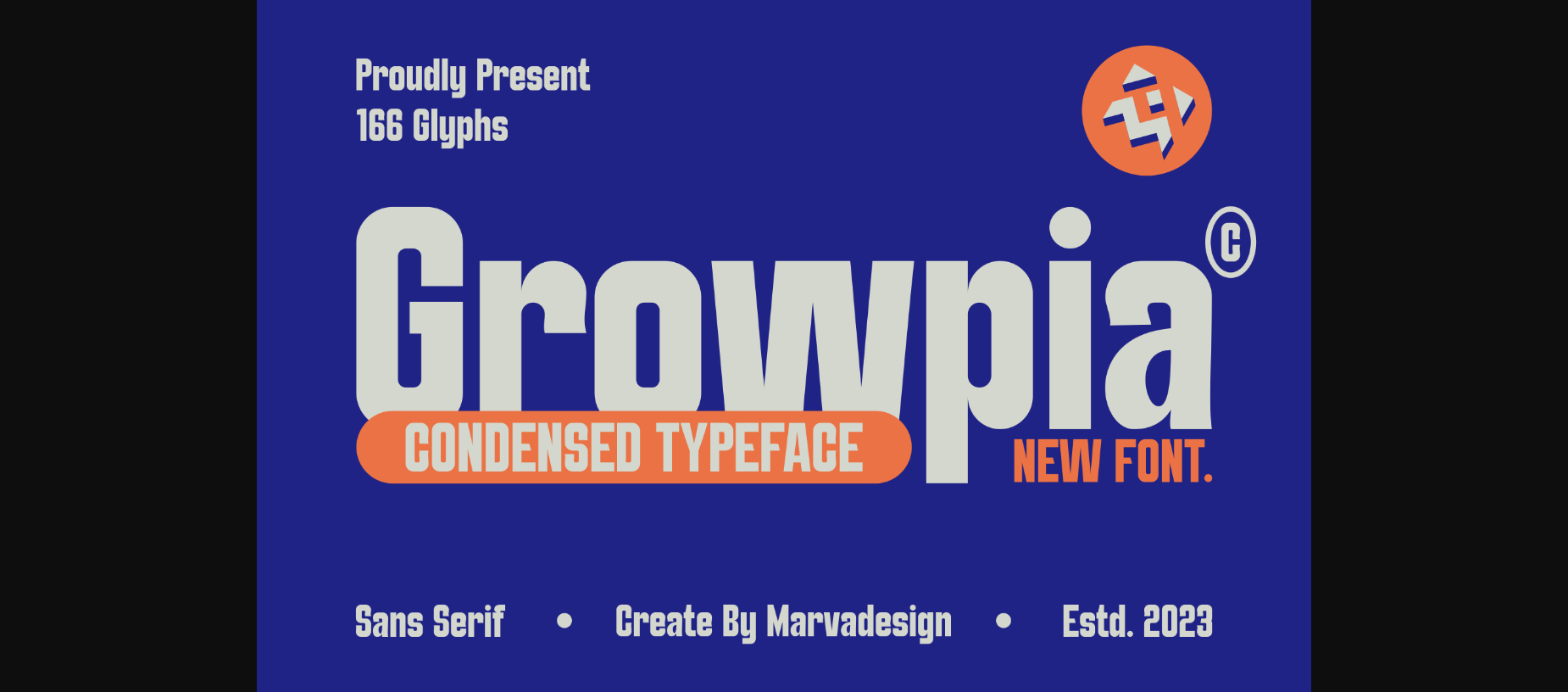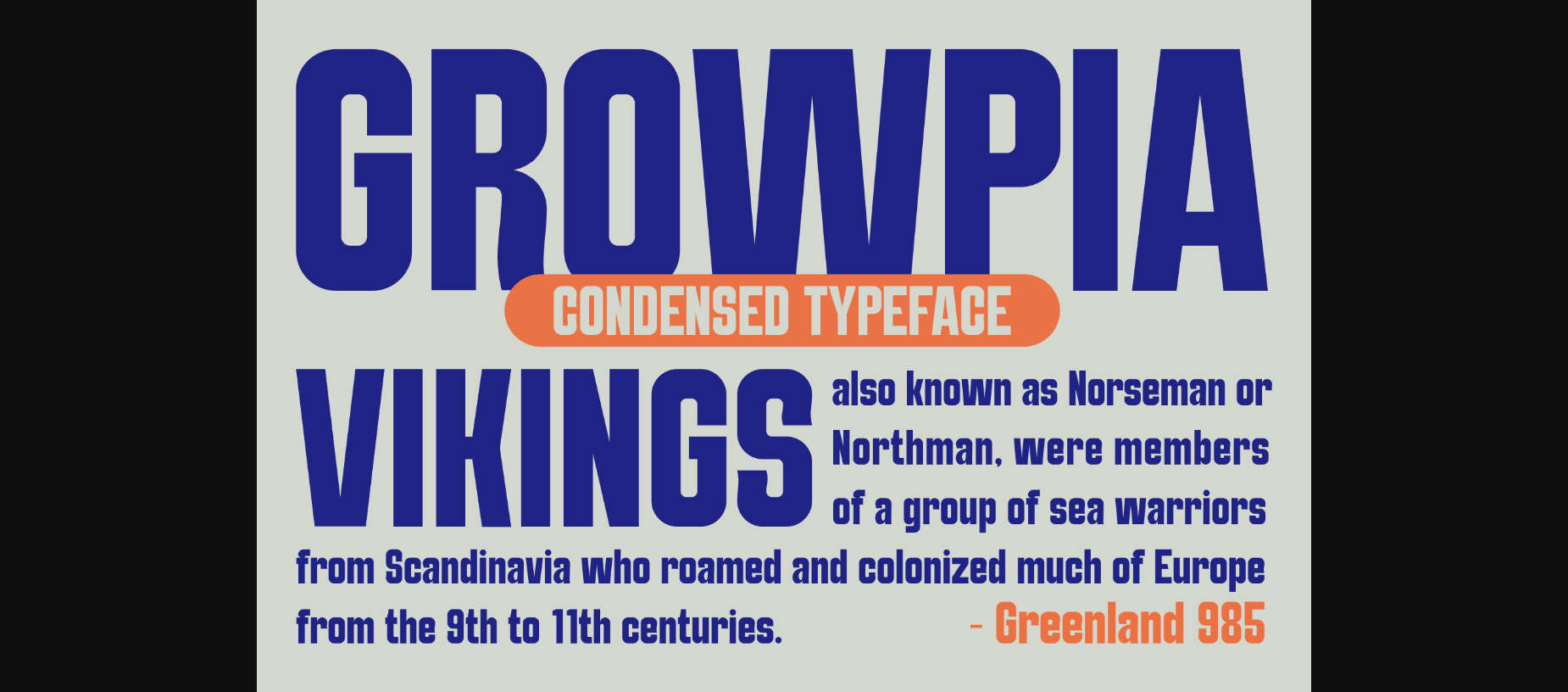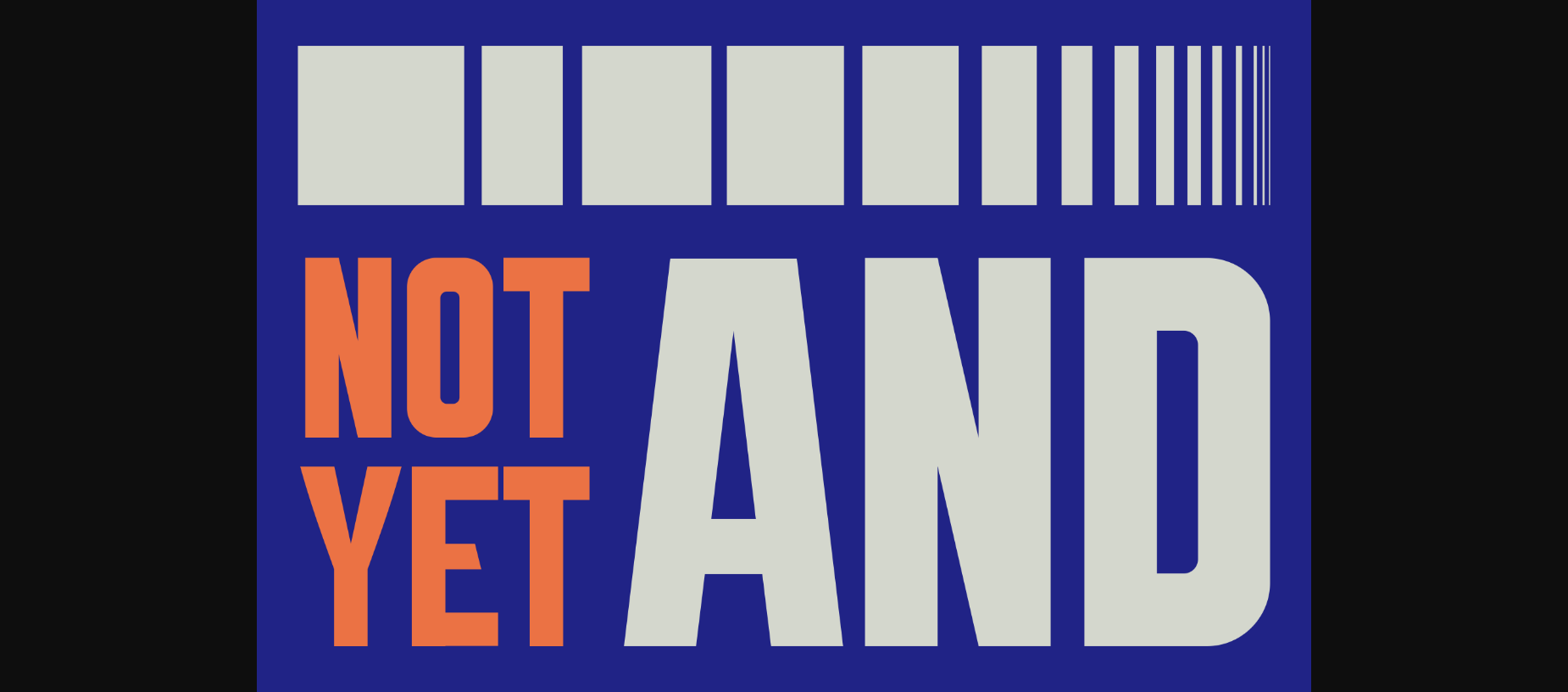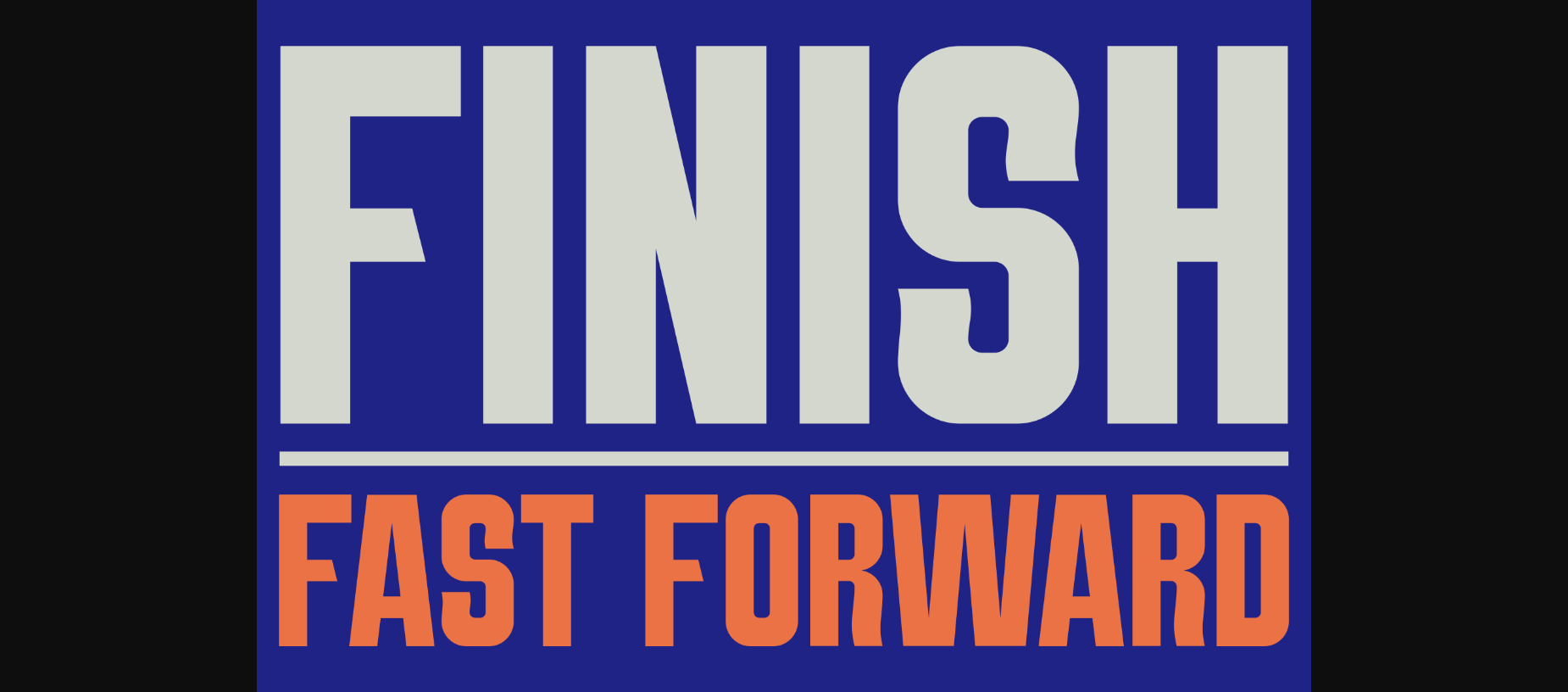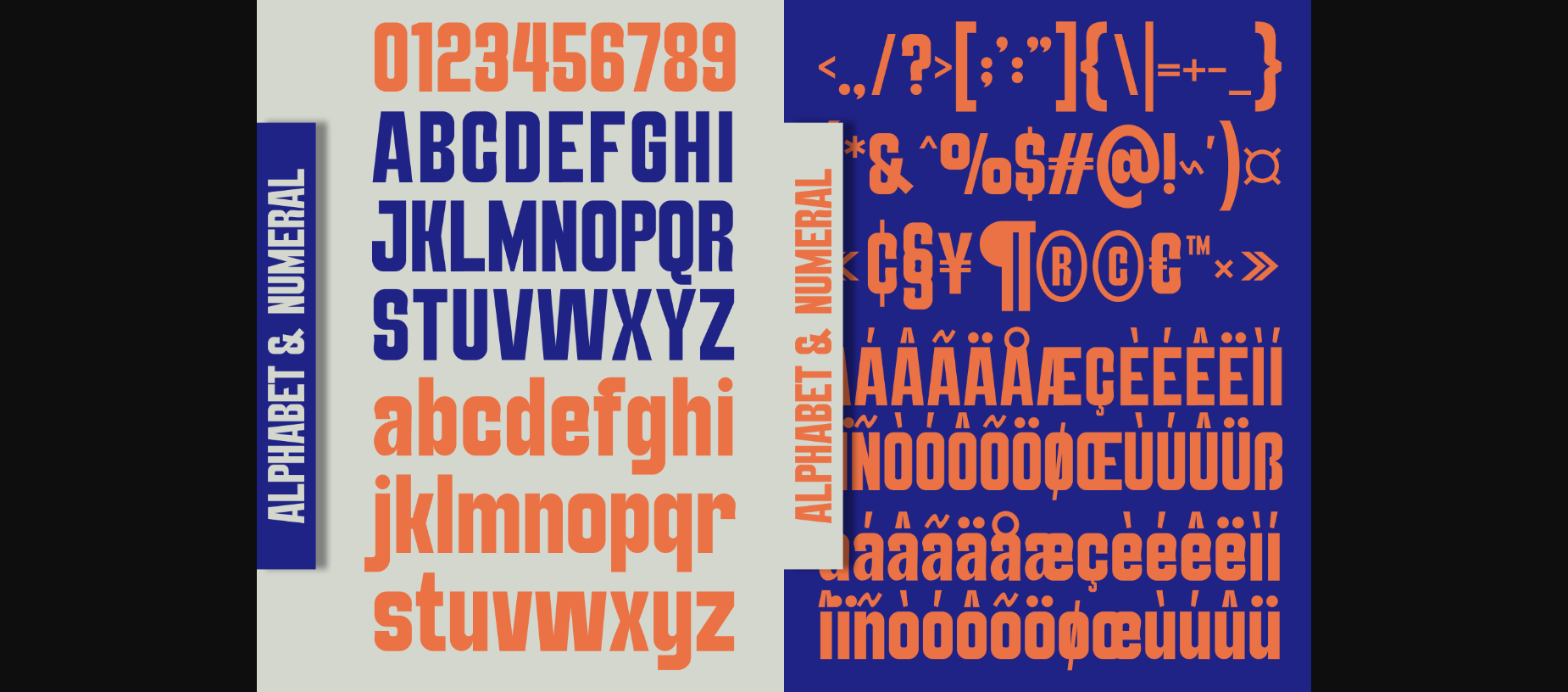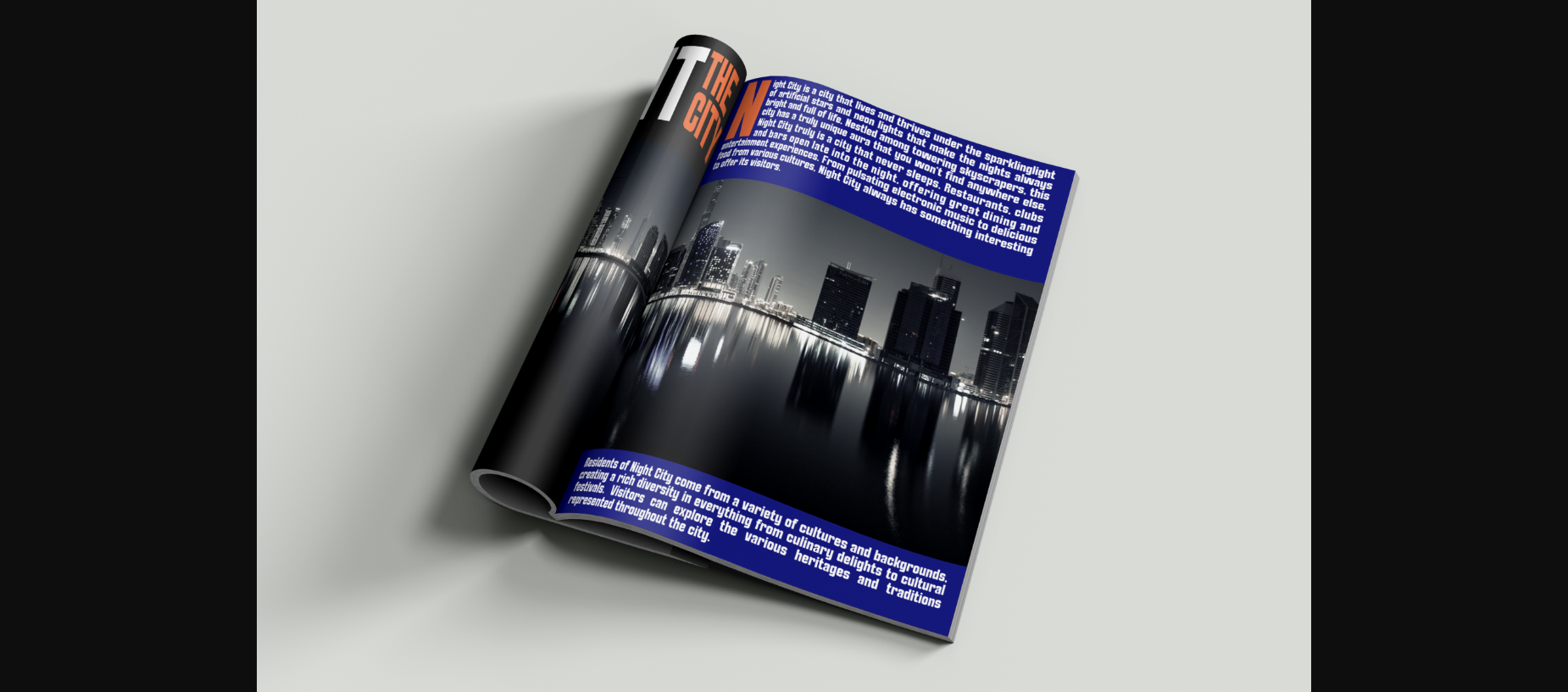
About Growpia Font
Introducing Growpia, a bold and modern condensed font. With its sleek style and strong presence, Growpia adds a contemporary touch to any project. Perfect for making a statement in headlines, titles, or logos, this font stands out with its confident demeanor. Whether you’re designing posters, banners, or branding materials, Growpia brings a bold edge to your creations, making them instantly eye-catching and memorable.